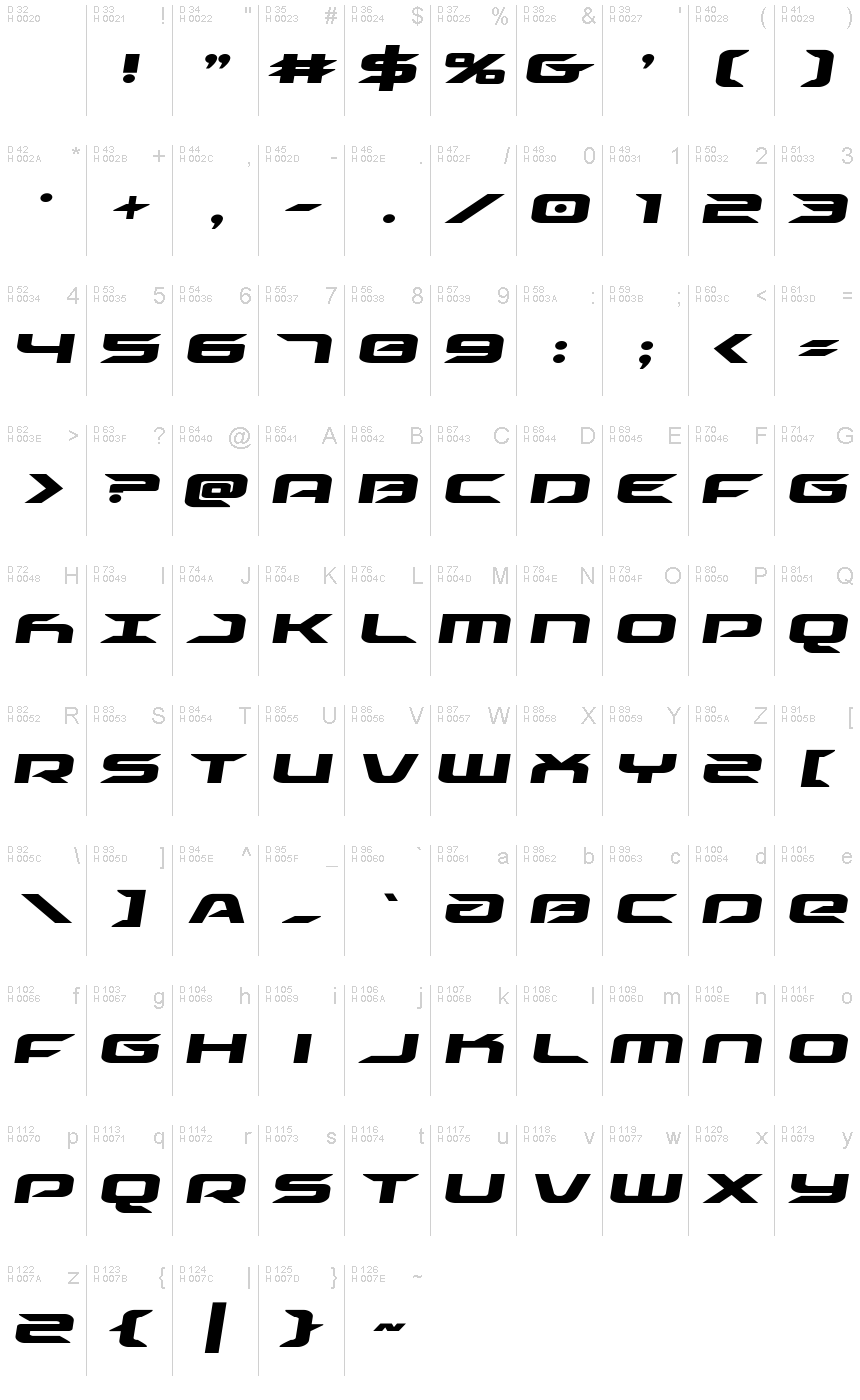
Drive Semi-Italic
Introducing Drive Semi-Italic, a bold and futuristic font crafted by Iconian Fonts. This expanded display typeface exudes a sense of dynamism and technological prowess, with its sleek lines and angular forms evoking a sophisticated, high-tech aesthetic. The semi-italic slant lends an air of motion and progression, making it an ideal choice for captivating headings, impactful branding, and eye-catching digital interfaces.
The Drive Semi-Italic font's versatility shines through its ability to seamlessly integrate into a wide range of design contexts, from sleek product packaging and dynamic website headers to striking event posters and bold brand identities. Its bold and expanded character set ensures a powerful visual presence, making it a top choice for designers seeking to make a lasting impression and convey a sense of modernity and innovation.